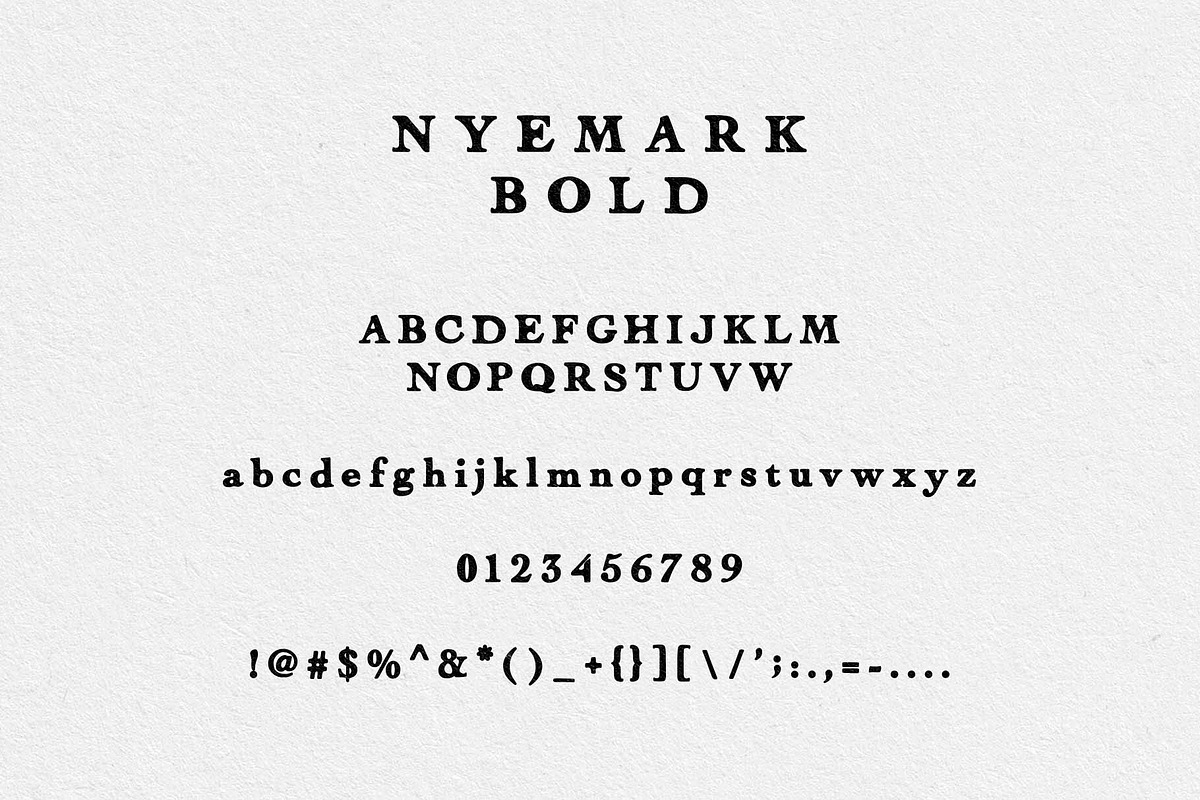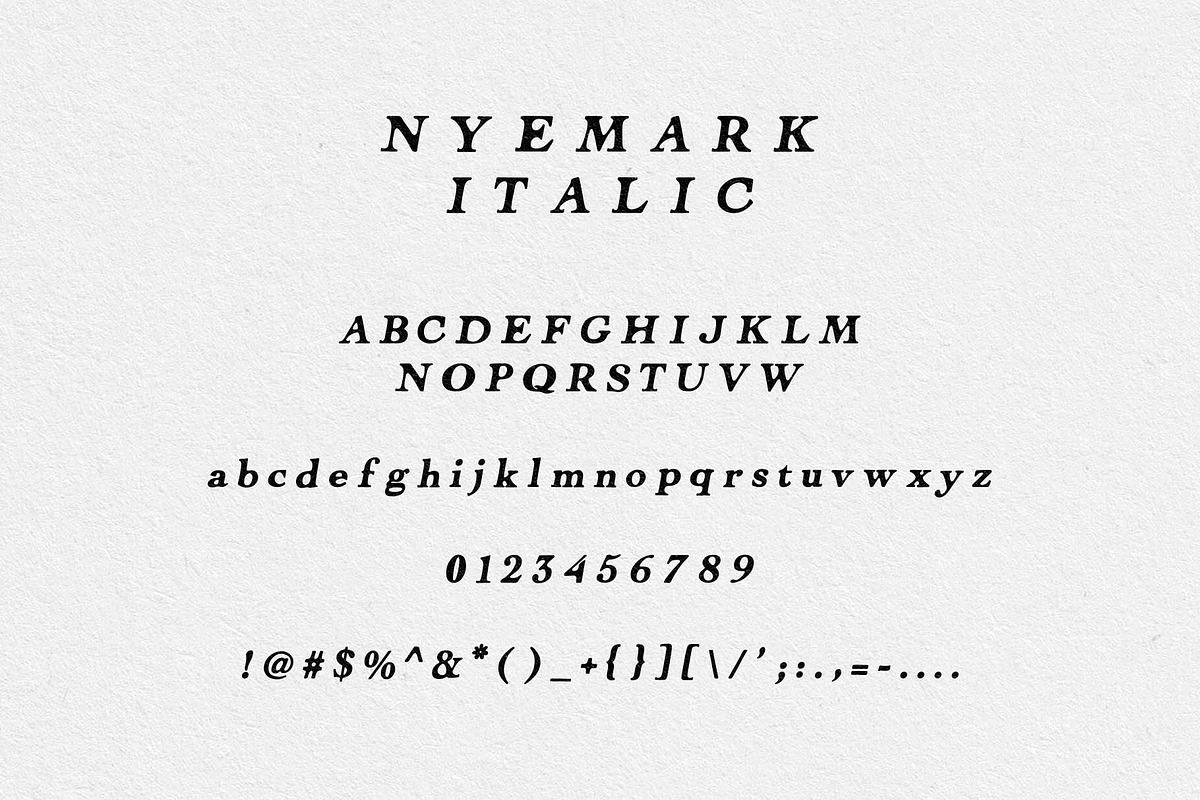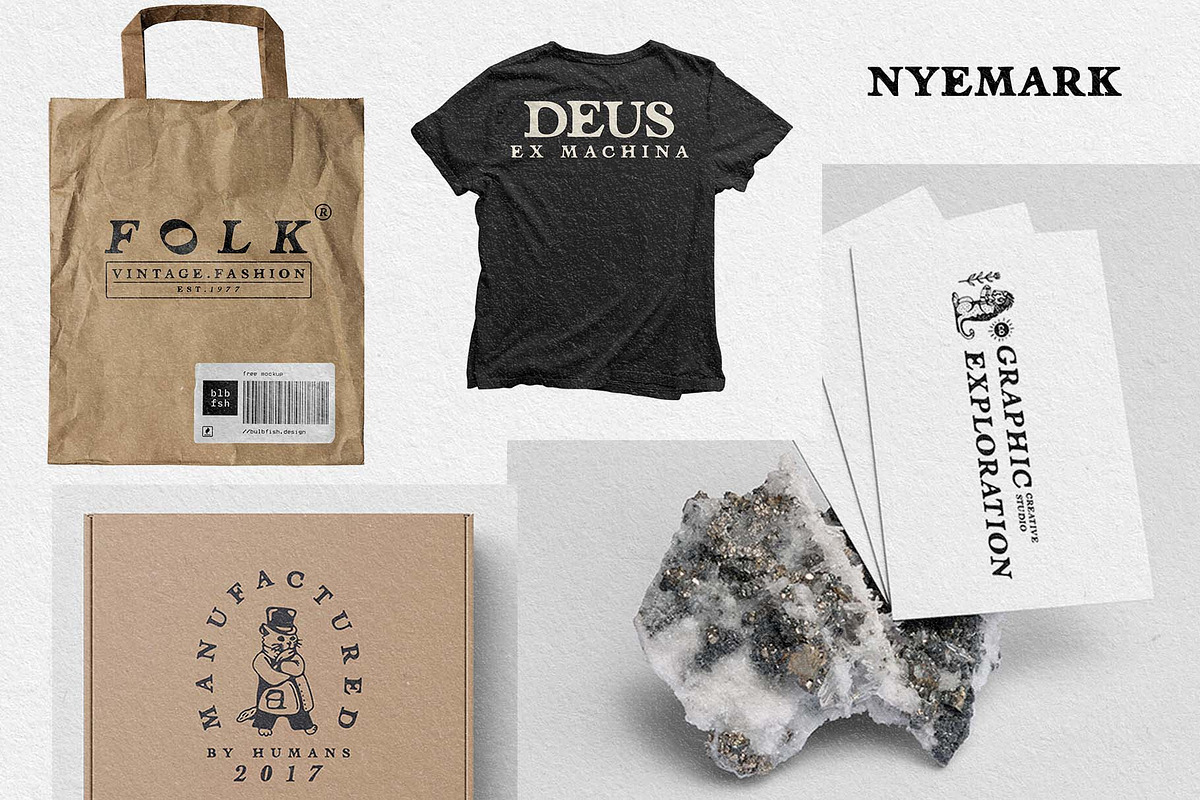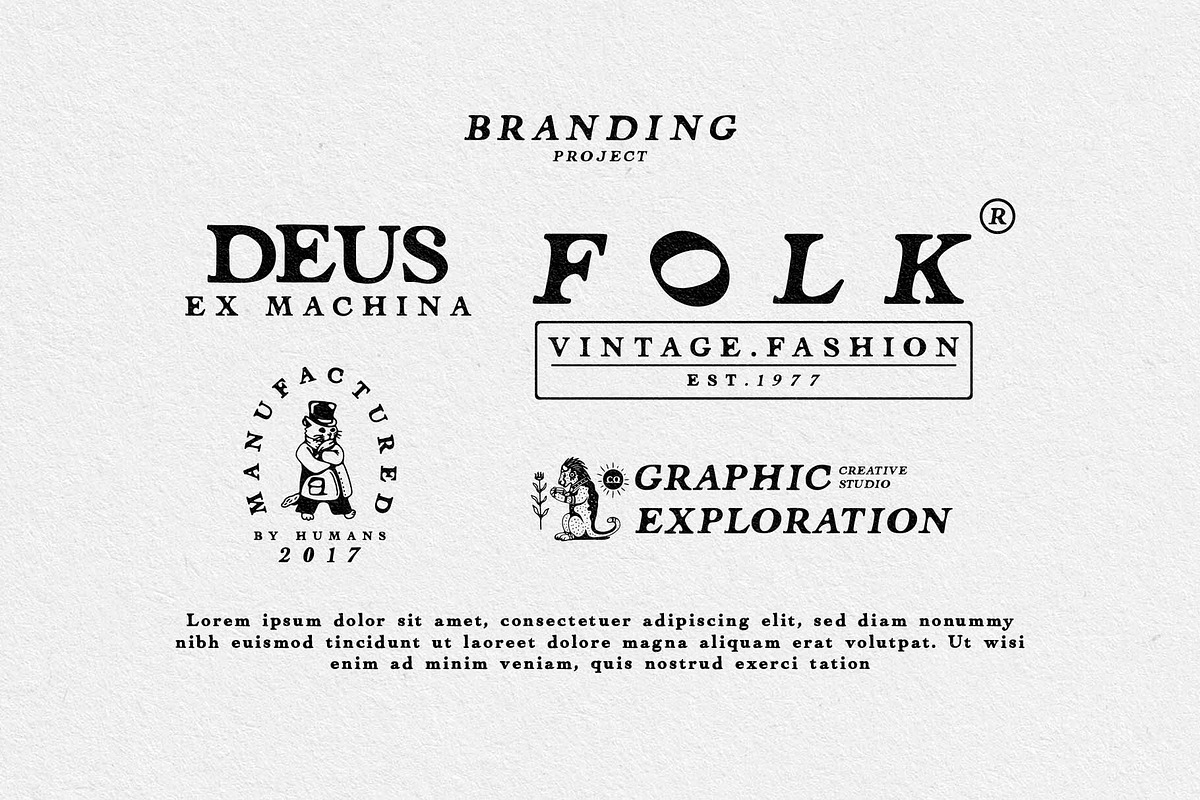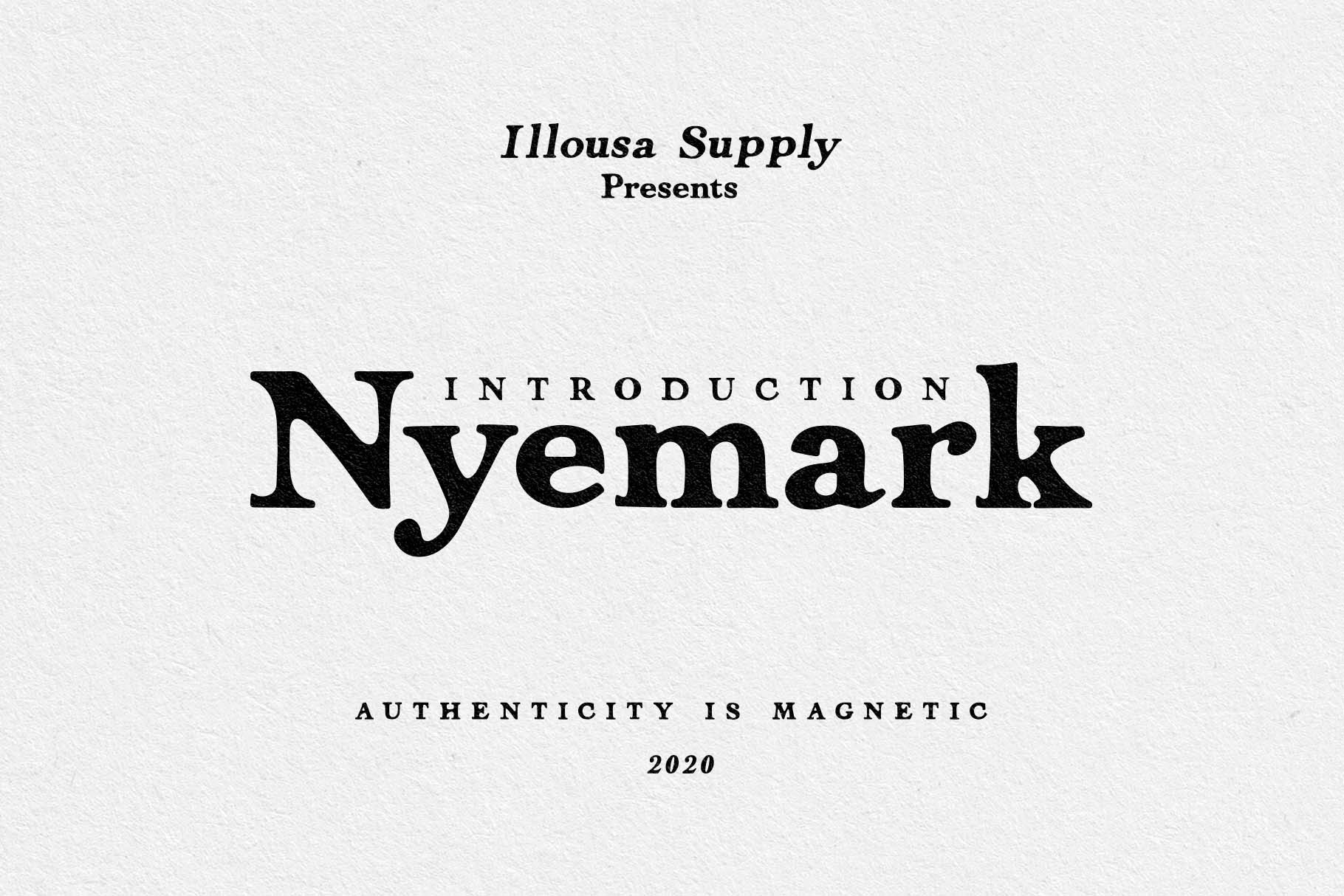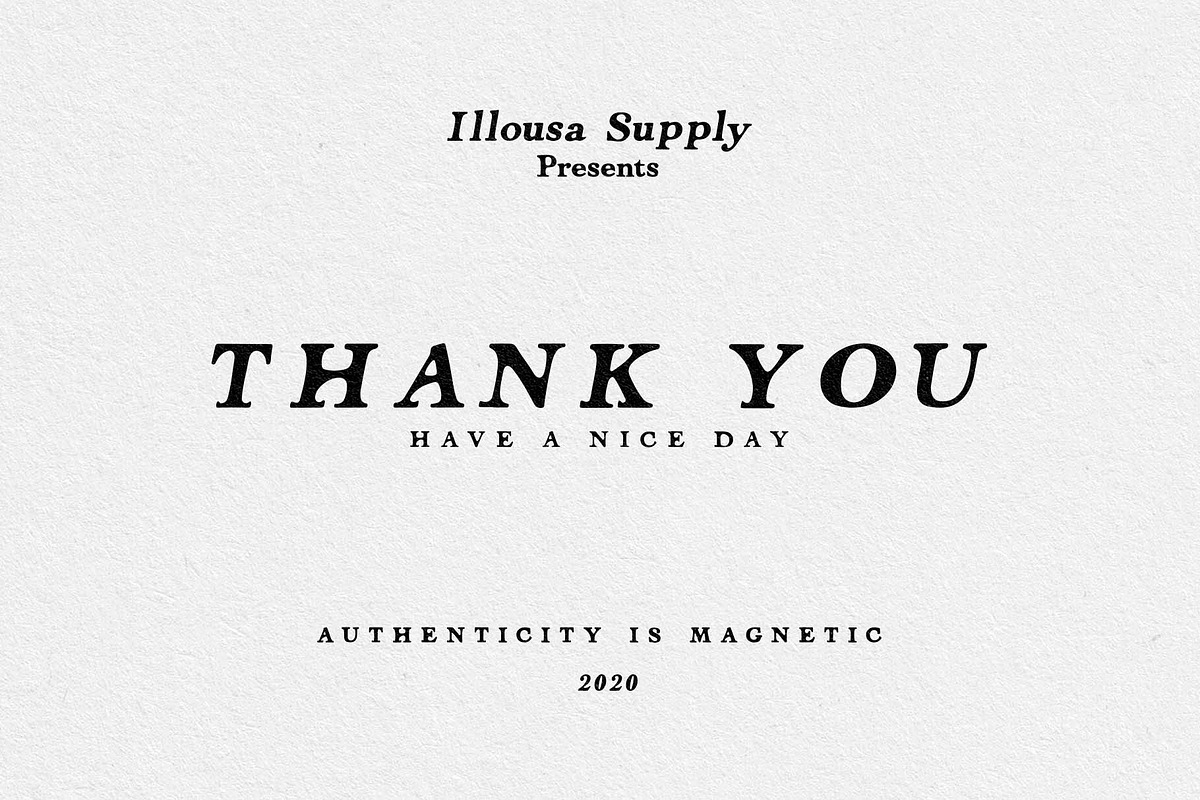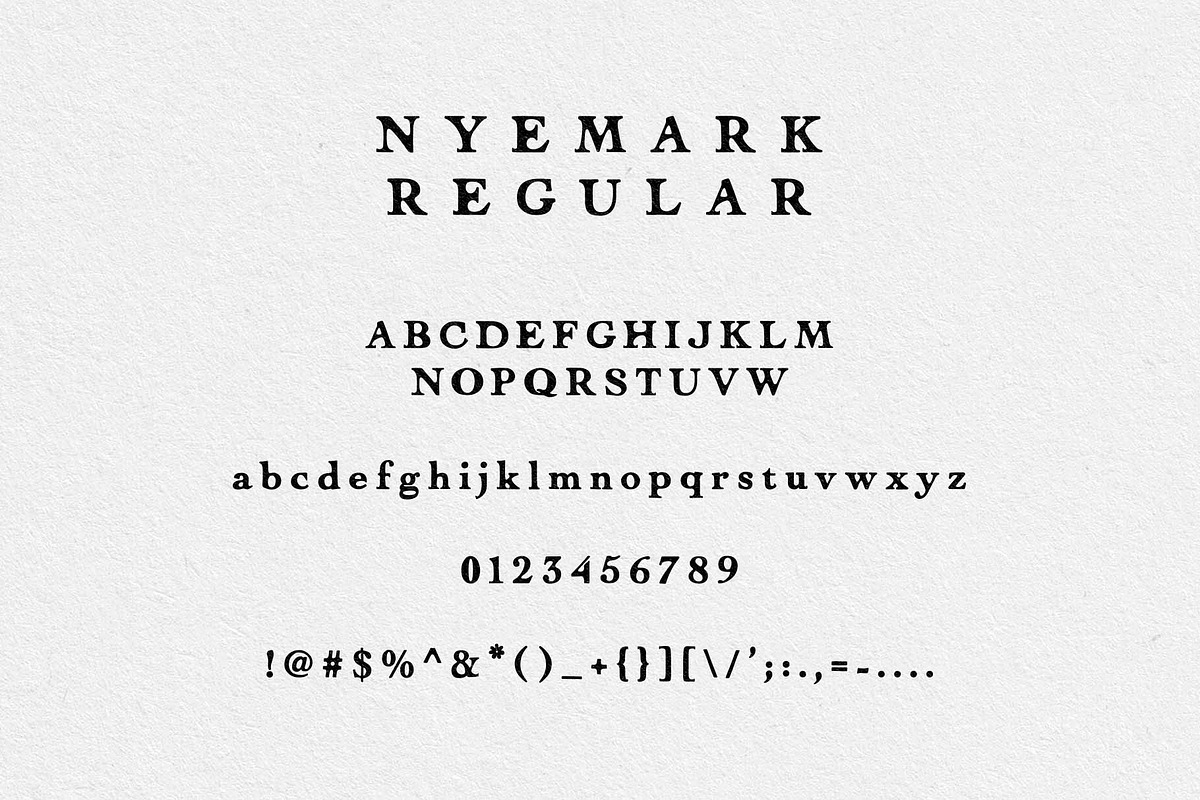
Nyemark - Serif Typeface
Introducing Nyemark - An Handdrawn serif typeface with simple vintage stylistic alternates to choose. Its minimalistic works wonderfully for branding like a logos, graphictee, headlines, posters, packaging and many more! Autheticity is Magnetic! thanks. have a nice day and create something everyday with your imagination.!!!!
FEATURES: Nyemark Typeface Family regular style, italic style & bold style Format File: TTF,OTF